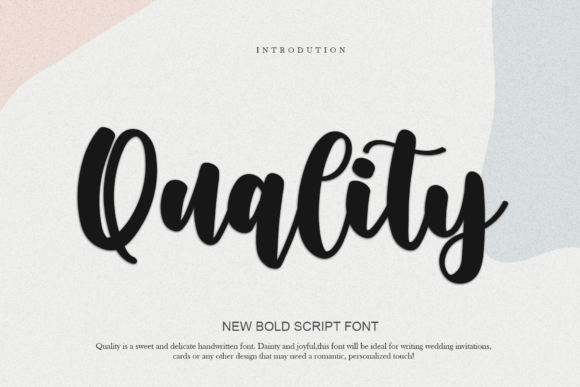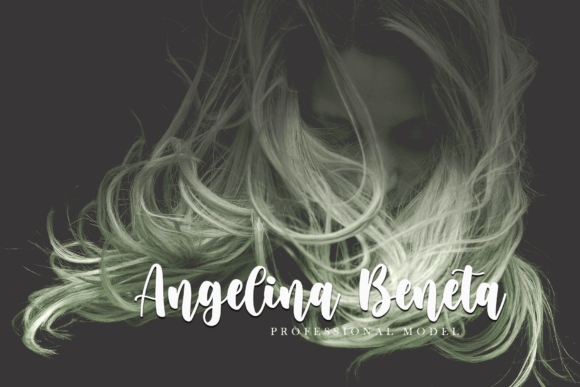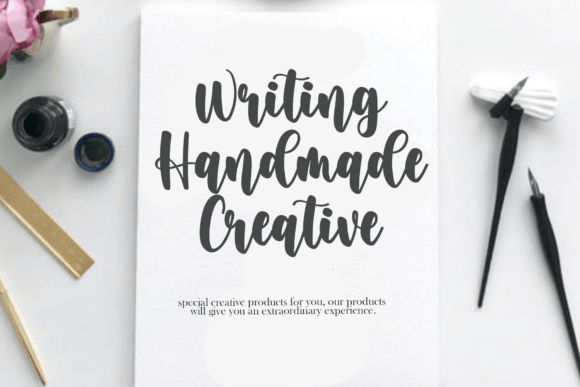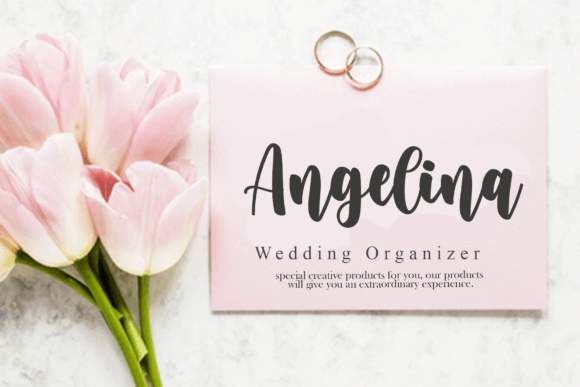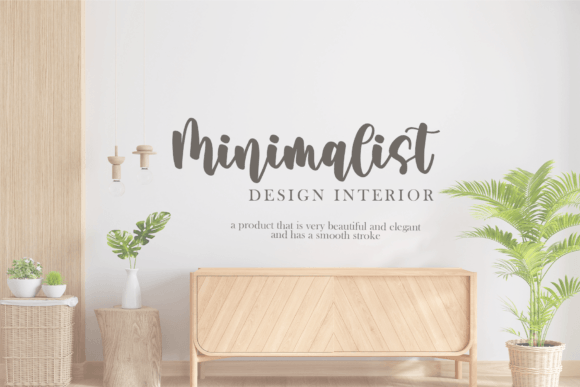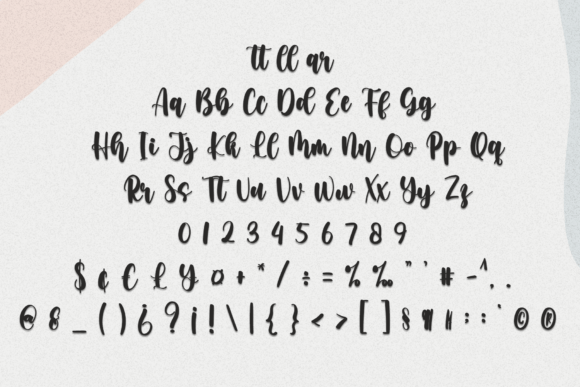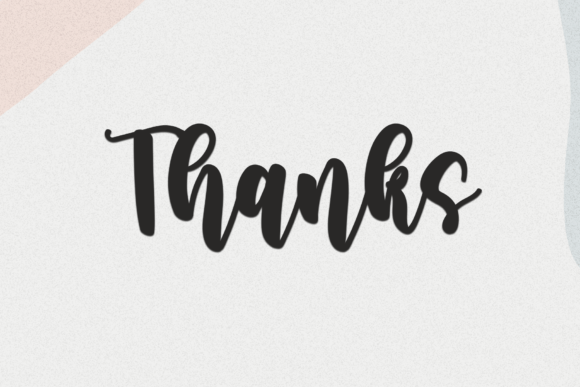
Quality Font
About Quality Font
**Elevate Your Designs with “Quality” Handwritten Font**
Introducing “Quality,” a stylish handwritten font that effortlessly blends contemporary aesthetics with impeccable form. Drawing inspiration from timeless classic calligraphy, this font is meticulously crafted to elevate the visual appeal of your projects.
**Timeless Classic Calligraphy:**
“Quality” encapsulates the essence of timeless classic calligraphy, infusing your designs with a touch of enduring elegance. Its carefully constructed strokes and graceful curves bring a unique and timeless charm to your typographic creations.
**Contemporary Atmosphere:**
This handwritten font introduces a contemporary atmosphere to your designs, making it a versatile choice for a wide array of applications. Whether you’re working on branding materials, invitations, or other creative projects, “Quality” adds a modern and stylish touch to your typography.
**Impeccable Form:**
The font’s impeccable form reflects a meticulous design process. Every nuance, from delicate curves to intricate details, is thoughtfully considered to ensure a harmonious and visually pleasing result. “Quality” transcends being just a font; it’s a visual masterpiece that enhances the aesthetic allure of your projects.
**Balanced and Varied:**
Versatility is a hallmark of “Quality.” Its balanced and varied design makes it suitable for diverse applications, from headlines to logos. This adaptability allows you to explore creative possibilities and express your unique style across different contexts.
**Enhance Your Projects:**
“Quality” is PUA encoded, granting you easy access to its full range of glyphs and ligatures. This feature empowers you with creative freedom, enabling seamless customization to suit the specific requirements of your project.
In conclusion, “Quality” isn’t just a font; it’s a design companion that enriches your creations. Whether you seek a classic or contemporary look, this handwritten font brings a perfect fusion of style and form to your typography. Transform your projects into visual masterpieces with the timeless allure of “Quality.”